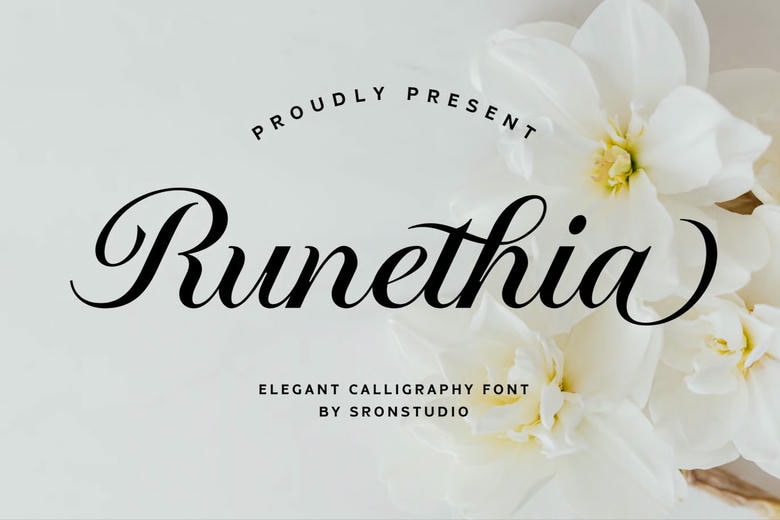
Runethia Font
Runethia is a classy calligraphic typeface that embodies a feeling of grace, beauty and eternal classiness. Having flowing strokes, fine curves, and elegant details, this font can be used in a wedding invitation, luxury brands, logos, packaging, and romantic designs. Runethia adds the touch of soft yet expressive calligraphy to the words, making them personal and unique.
Runethia Calligraphy Script Font